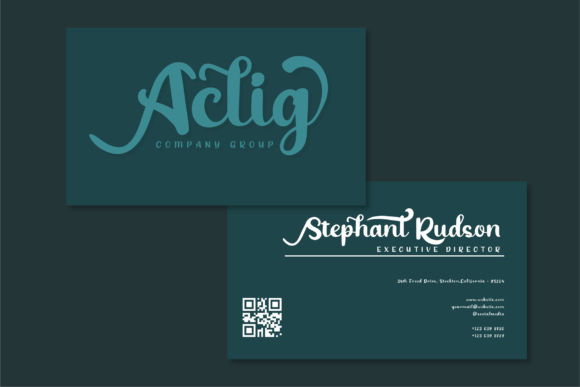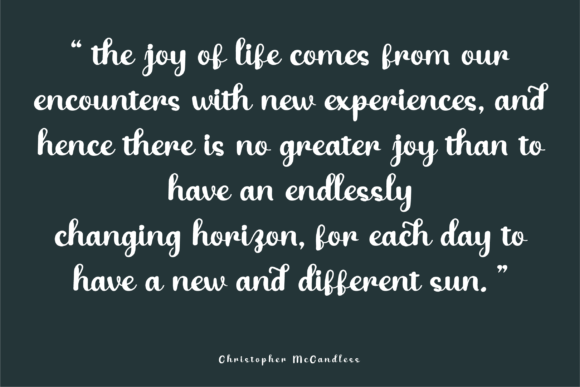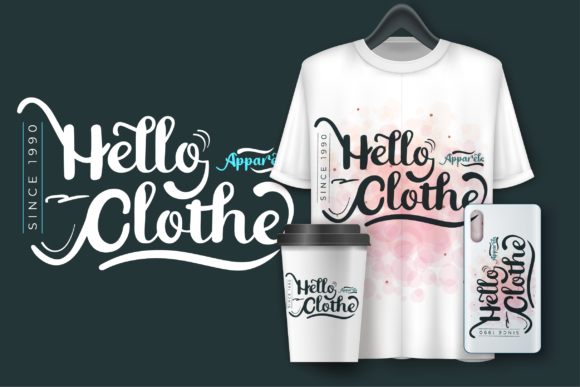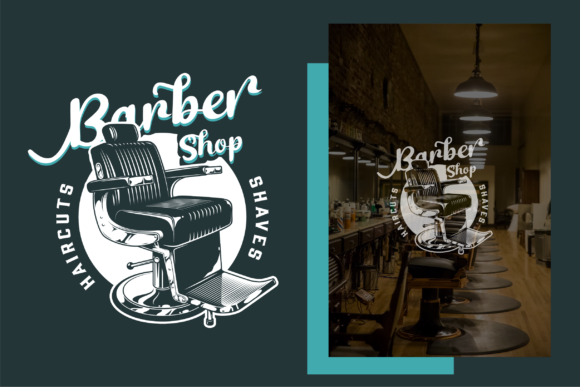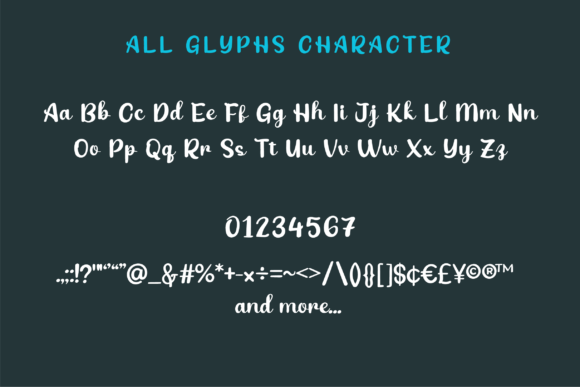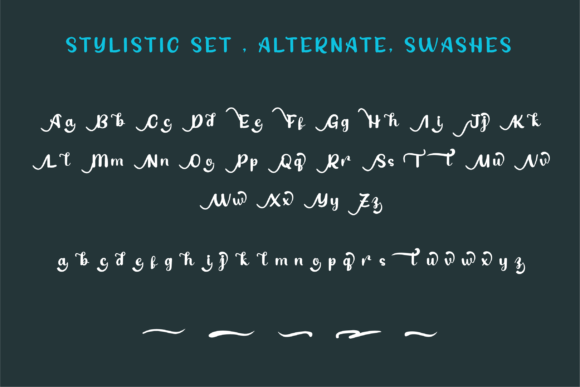
Introduction to Babang Font
Have you ever been in the middle of a creative project, staring at a blank canvas, and suddenly, a spark of inspiration strikes? It’s that moment when you know exactly what you need to elevate your design – the perfect font. For many designers, the search for that elusive font can be a daunting task. But what if I told you that I’ve discovered a treasure trove of elegance and sophistication, a font that will make your designs stand out from the crowd?
Meet the Babang Font, a flowing handwritten font that exudes an air of refinement and sophistication. With its unique, timeless style, this font is a game-changer for any designer looking to add a touch of personality to their work. Whether you’re working on a high-end branding project or a personal creative endeavor, the Babang Font is the perfect design resource to take your work to the next level.
Key Features of Babang Font
• High-quality design resource ideal for creative projects
• Includes a range of unique and stylish characters
• Perfect for designers seeking a distinctive and modern design element
Honest Review: Babang Font
As a designer, I’m always on the lookout for high-quality design resources to elevate my creative projects. Recently, I stumbled upon the Babang Font, and I must say it’s been a game-changer for me.
Here’s what I love about the Babang Font:
• ✨ Beautiful, modern design that’s perfect for contemporary creative projects.
• ✨ High-quality font that’s great for printing or digital use.
• ⚠️ Limited character set, which may not be suitable for extended text-based projects.
• ⚠️ Not as versatile as some other fonts on the market, making it less suitable for complex designs.
Overall, I’m really impressed with the Babang Font. Its unique design and high-quality features make it a valuable resource for designers working on modern creative projects. While it may have some limitations, I believe it’s a great addition to any designer’s toolkit – especially considering it’s free to download.
Babang Font is a free download design resource ideal for creative projects that require a high-quality, unique typography. This font features a transparent background, making it versatile for use in various design applications.
Tips for Getting the Most Out of Babang Font
To get the most out of Babang Font, try experimenting with different font sizes and styles. You can also pair Babang Font with other design resources to create a unique and eye-catching design.
Common Use Cases for Babang Font
Babang Font is ideal for creative projects such as logos, branding materials, and social media graphics. Its unique design and transparent background make it a versatile resource for a variety of design applications.